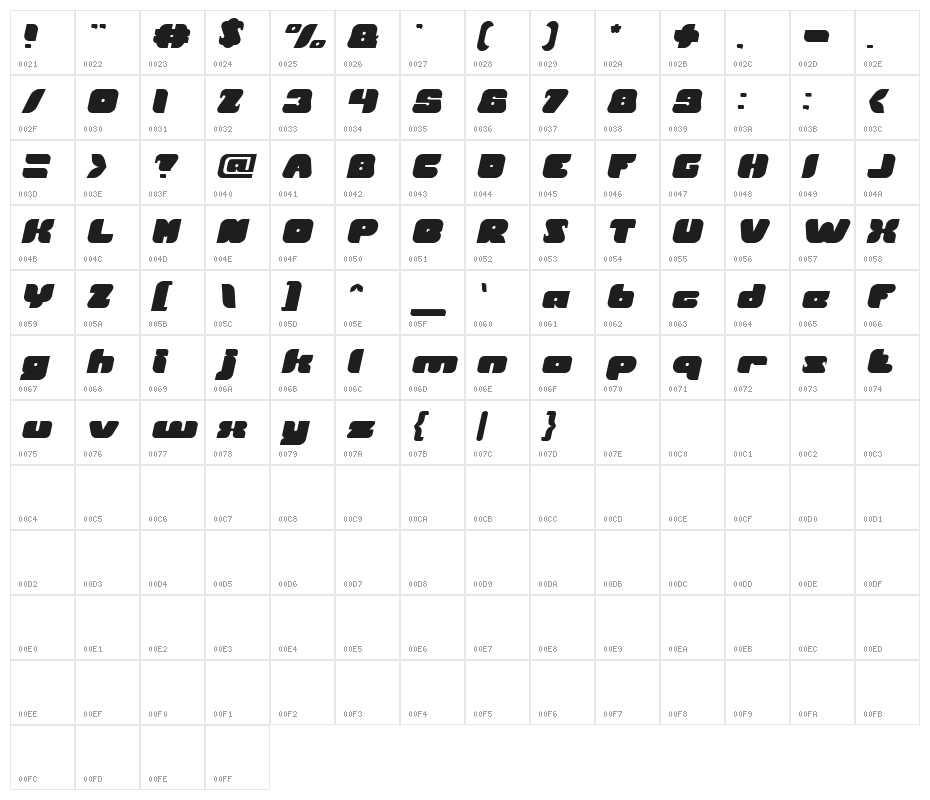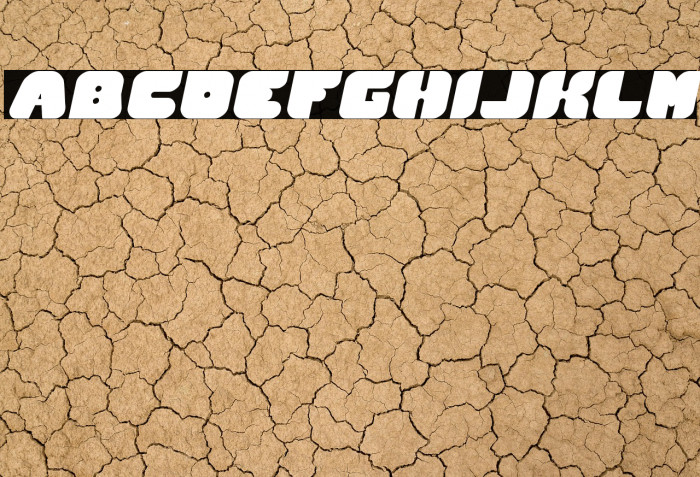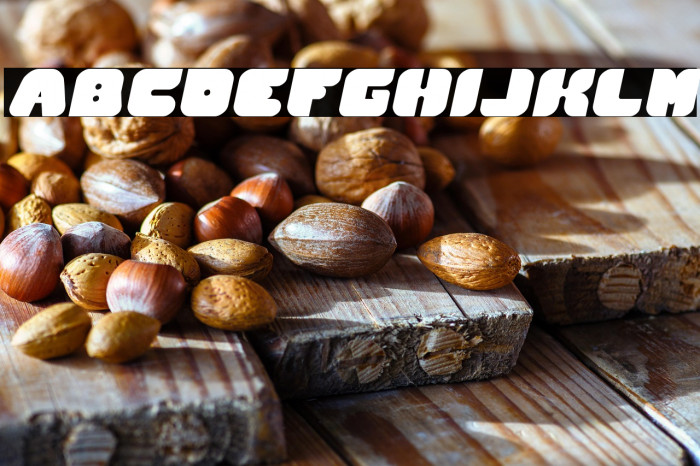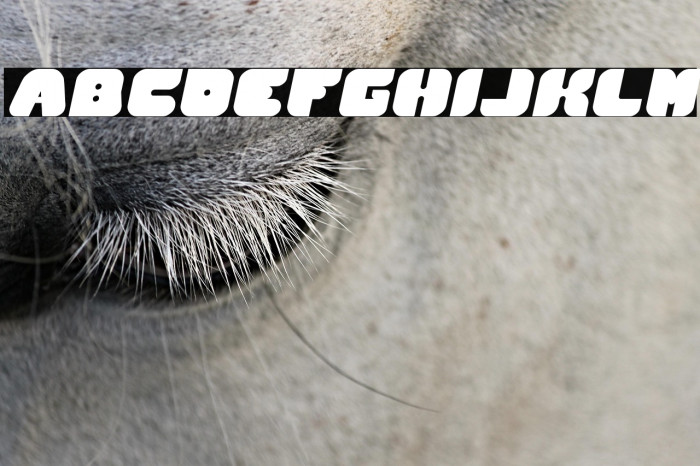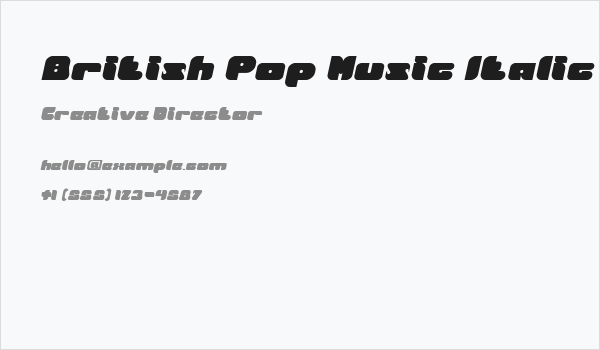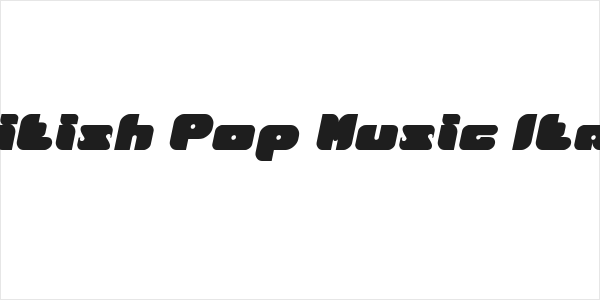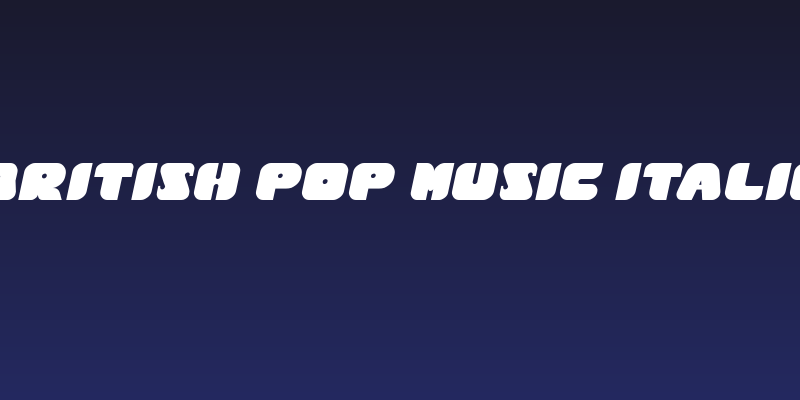
British Pop Music Italic Font
British Pop Music Italic Description
This font features a bold and playful design with a distinctly modern and retro flair. The characters are rounded and thick, giving them a substantial presence on the page. The italic slant adds a dynamic and energetic feel, reminiscent of vibrant pop culture aesthetics. The uppercase and lowercase letters maintain a consistent style, with smooth curves and a slightly condensed form that enhances readability. Numbers and special characters follow the same design principles, ensuring uniformity across all text elements. The font's unique style makes it ideal for projects that require a bold statement or a touch of nostalgia.
| Overall Style | Modern, Retro |
| Proposed Projects | Ideal for music album covers, posters, branding, and any project seeking a bold, retro aesthetic. |